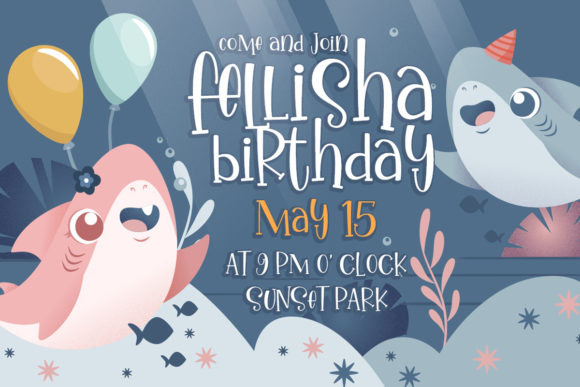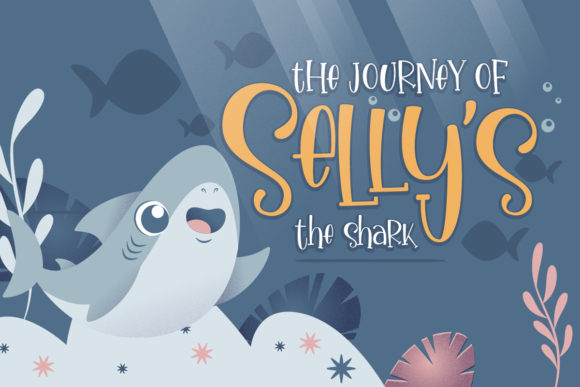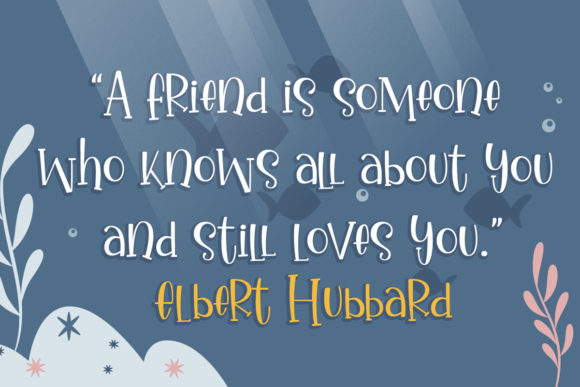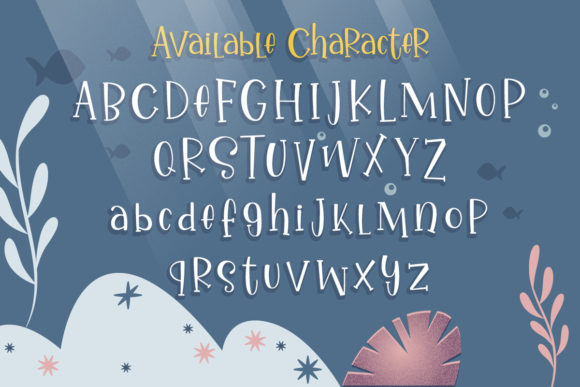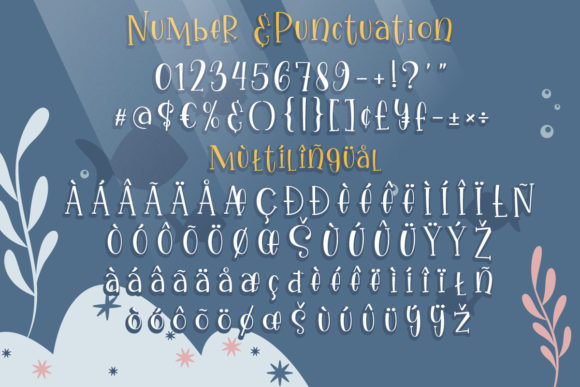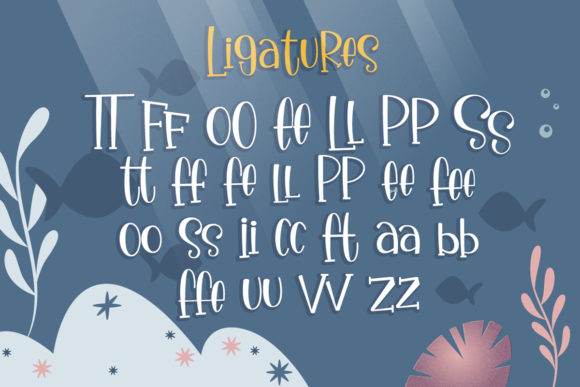
Introduction to Ikan Salmon Font
There’s something special about creating a design that truly speaks to you. Maybe it’s the way the colors dance together, or the way the typography seems to leap off the page. For designers, those moments are what make all the late nights and early mornings worth it. And sometimes, all it takes is the right font to bring a project to life. That’s where the Ikan Salmon Font comes in – a fun and friendly handwritten font that’s perfect for adding a touch of personality to your next creative project.
Whether you’re working on a high-quality design for a client or a free download for a personal project, the Ikan Salmon Font is a valuable resource for designers. With its simple and easy-to-use design, you can mix and match it with your other craft designs to create something truly unique. Plus, with its transparent background and PUA encoded glyphs, you’ll have access to all the swashes and characters you need to bring your design to life.
Key Features of Ikan Salmon Font
- High-quality, free download font suitable for creative projects
- Unique, hand-drawn design with a transparent background for versatility
- Resolution-independent font for use in various design applications
- Designed to be used for a wide range of creative projects, including graphics, logos, and more
- Perfect design resource for those looking for a high-quality, free font with a unique aesthetic
Honest Review: Ikan Salmon Font
I recently came across the Ikan Salmon Font, and I must say, it’s a great addition to any design project. As a designer, I’m always on the lookout for high-quality fonts that can elevate my creative work.
So, what works well with the Ikan Salmon Font? ✨ For starters, its unique design and playful style make it perfect for creative projects that require a touch of whimsy. The font also features a transparent background, which is ideal for designers who want to layer their text over images or other design elements.
However, I did notice a few limitations with the font. ⚠️ While it’s great for creative projects, it may not be the best choice for formal or professional work, as its design can come across as a bit too playful. Additionally, the font’s limited character set may require designers to use a combination of fonts to achieve the desired look.
Overall, I’m impressed with the Ikan Salmon Font, and I think it’s a great addition to any designer’s toolkit. It’s a versatile font that can add a touch of personality to any creative project.
- High-quality font with a unique design
- Perfect for creative projects and design resources
- Features a transparent background
- Limited character set may require additional fonts
Tips for Getting the Most Out of Ikan Salmon Font
To get the most out of the Ikan Salmon Font, use it in combination with other design elements, such as graphics and images. Experiment with different font sizes and styles to create a visually appealing design.
Common Use Cases for Ikan Salmon Font
The Ikan Salmon Font is ideal for a variety of creative projects, including social media graphics, presentations, and documents. It’s also a great choice for designers who want to create high-quality designs with a transparent background.
Yes, the Ikan Salmon Font has a transparent background, making it ideal for designs that require a clear and unobstructed view. This feature allows you to use the font on top of images or other design elements without any visual interference.
What is the recommended font size for using Ikan Salmon Font?
The recommended font size for Ikan Salmon Font is between 12pt and 24pt. This range provides a clear and readable text, making it suitable for various design applications, including headings, titles, and body text.